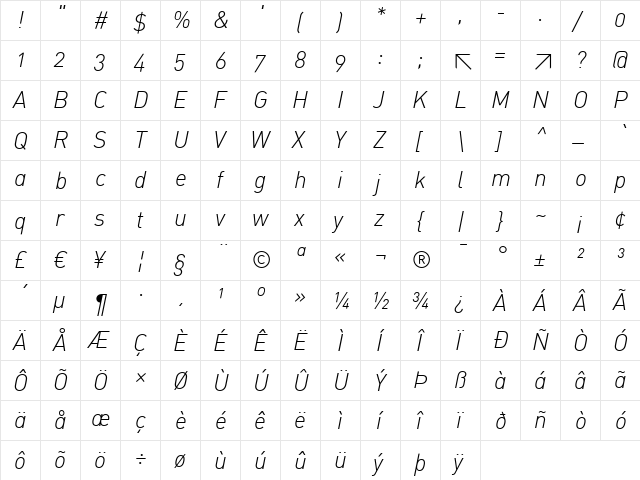
DIN-LightItalicAlt Regular Font Preview
Design Context for DIN-LightItalicAlt Typeface
DIN-LightItalicAlt offers clean, dependable letterforms without strong stylistic allegiance, making it a practical choice for designers who need flexibility. The slanted form adds forward momentum and visual energy. The delicate stroke weight brings airiness and refinement to layouts.
Pro Tip: Try DIN-LightItalicAlt for annotation and caption copy alongside an upright companion — the contrast in angle creates a dynamic but ordered typographic system.